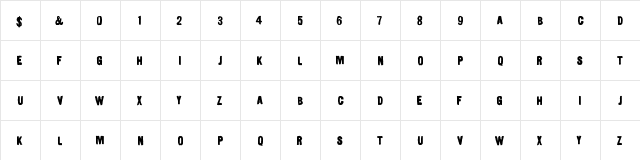
UrbanPaints Regular
| Foundry | Xerographer Fonts |
| Designer | Xerographer Fonts Max Infeld |
Design Context for UrbanPaints Typeface
UrbanPaints offers clean, dependable letterforms without strong stylistic allegiance, making it a practical choice for designers who need flexibility.